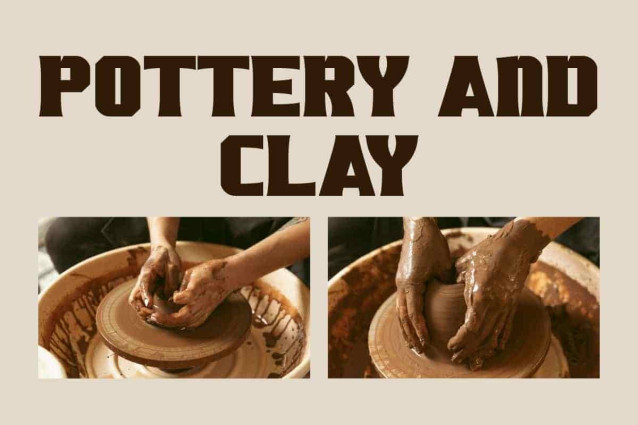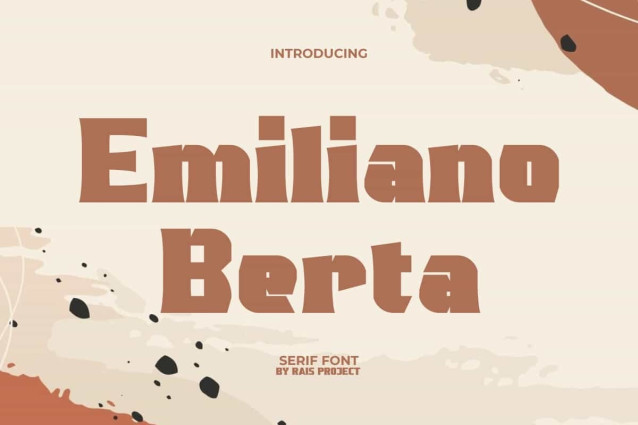
Emiliano Berta Font is a classic retro styled serif font with a unique boxy shape by RaisProject. This serif font has a catchy style and can paired with other font types. It will look good on invitation, stationery, poster, custom design, product packaging, quotes, signage, brand image, advertisement, label, marketing material, website page, and more!
Emiliano Berta Font includes a full set of ALL CAPS for Uppercase and Lowercase Letters, Numerals, and large range of Punctuation. This stylish font will be suitable for various industries, such as fashion, jewelry, cafe, event or wedding organizer, photography, printing, publishing, etc.